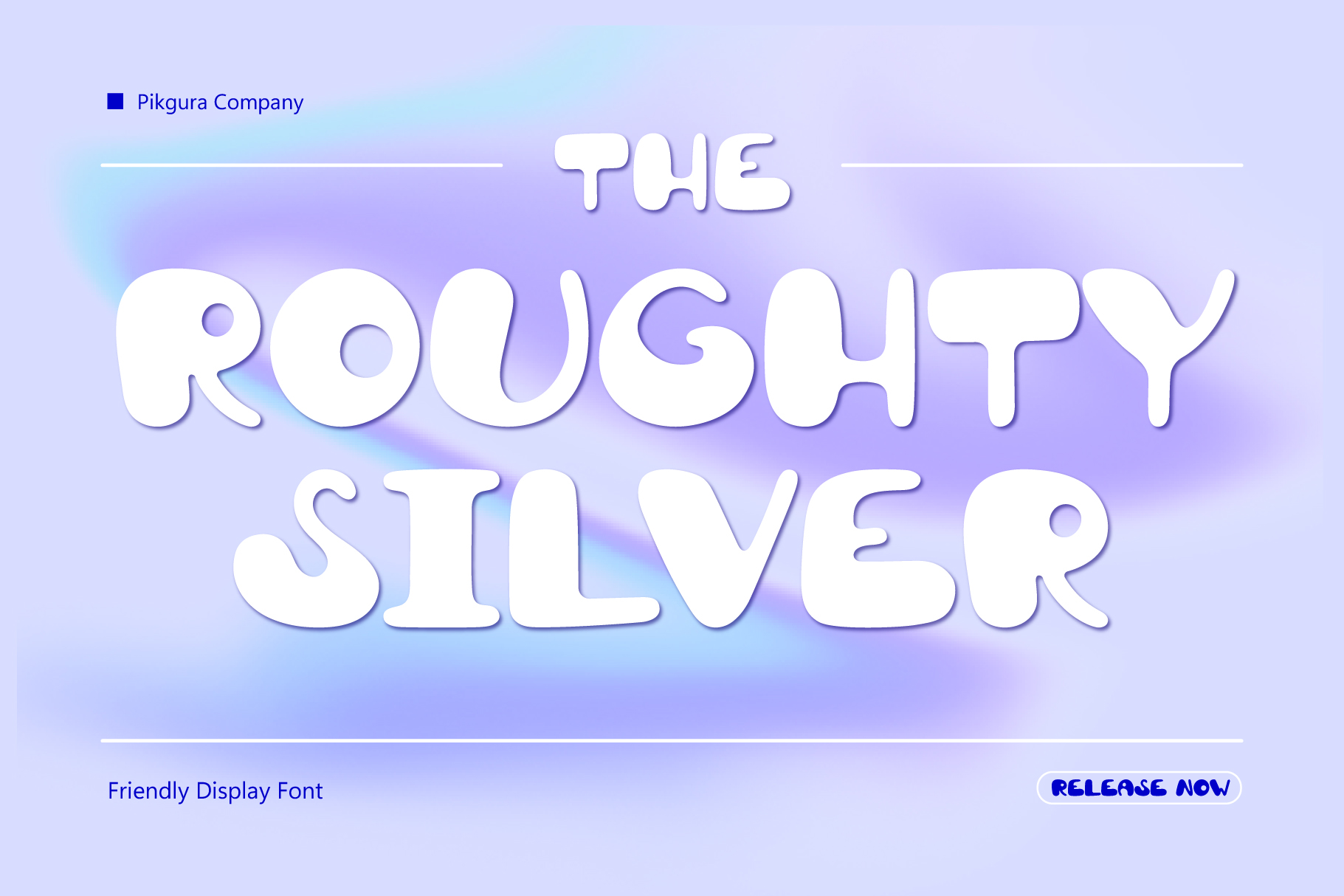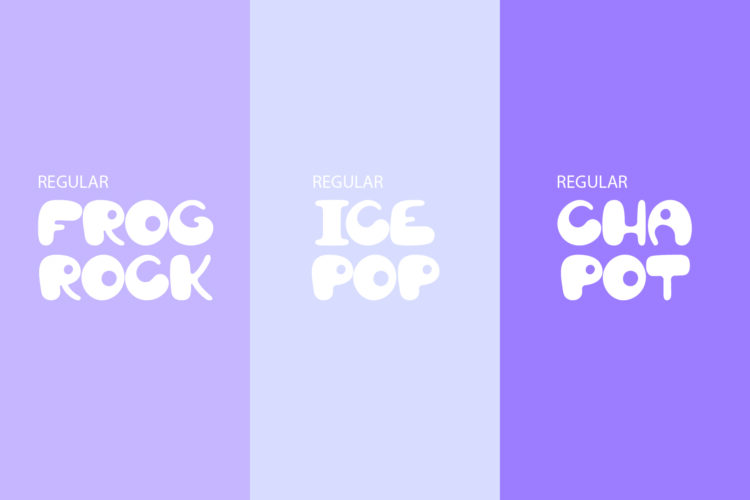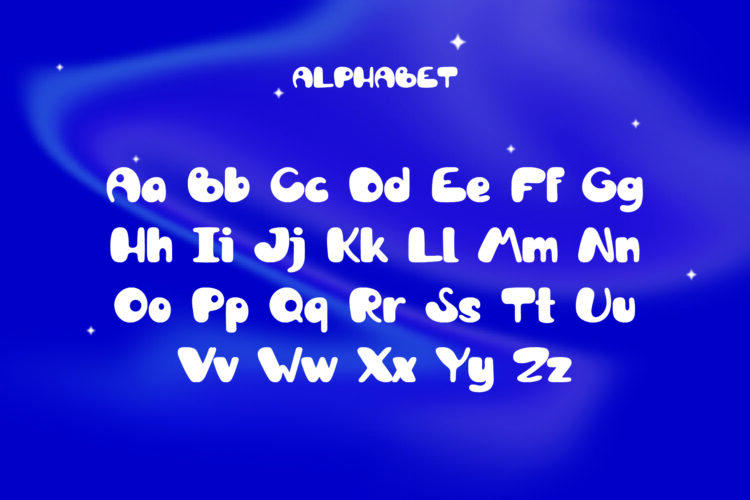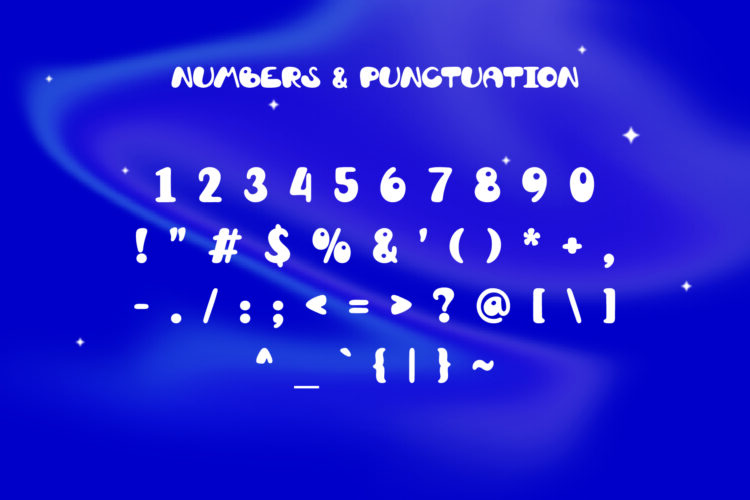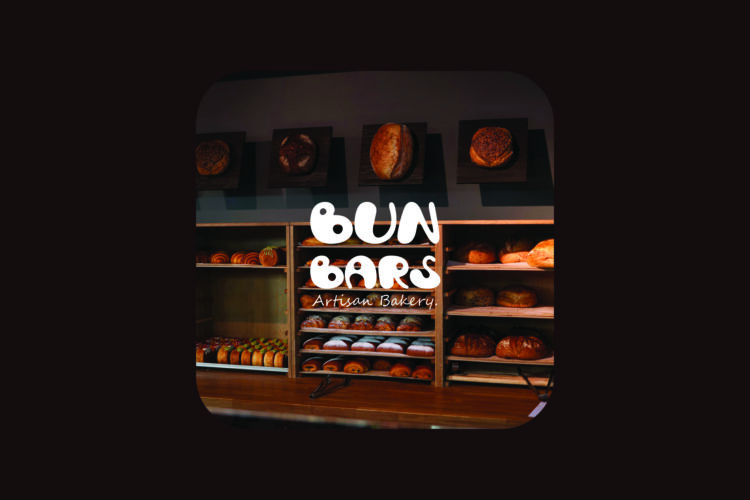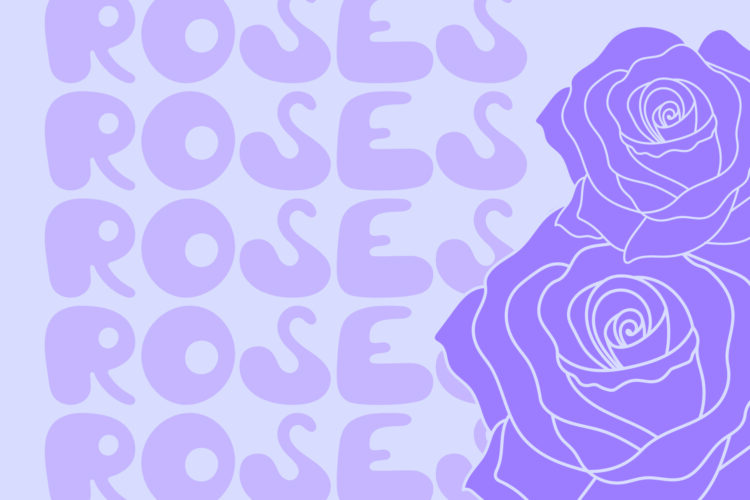
PGR Roughty
Roughty is a charming handwritten font that brings warmth and friendliness to your designs. Its playful bubble design and hand-drawn feel create a sense of happiness and approachability. Consequently, it’s perfect for bakery stores, cafes, and businesses aiming to convey a cozy atmosphere.
Moreover, this font is an excellent choice for children’s books, educational materials, and any content designed for kids. Its whimsical design engages young minds and adds a touch of fun to learning materials.
PGR Roughty -Bubbly Font